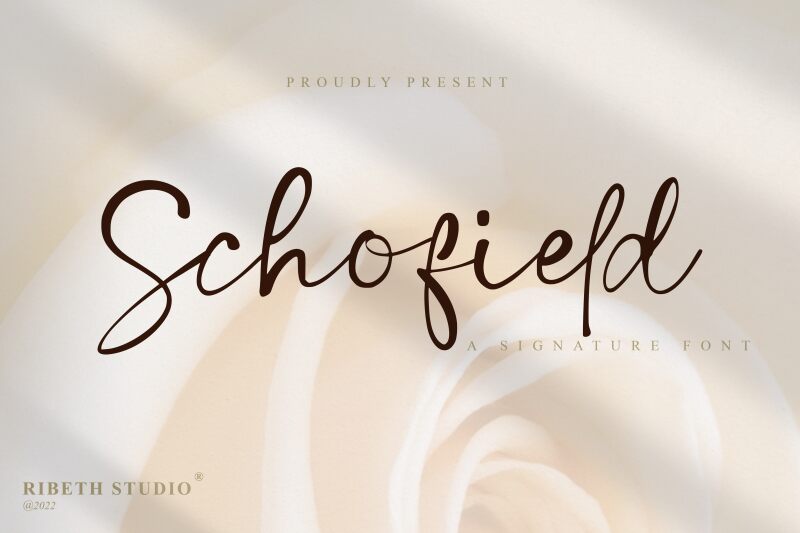
Schofield font from Ribeth Studio combines casual elegance with a modern flowing form that is perfectly apt for contemporary design projects. This free font contains handwritten characters enriched with a personal touch to convey a gorgeous signature-like style. It is affable, approachable, and finished with creative flair that is pleasant to the eyes.
Schofield font can be used in many projects, with the best ones including branding, headings, flyers, greeting cards, invitations, book covers, movie posters, social media, visual identity designs, typography quotes, and web pages.